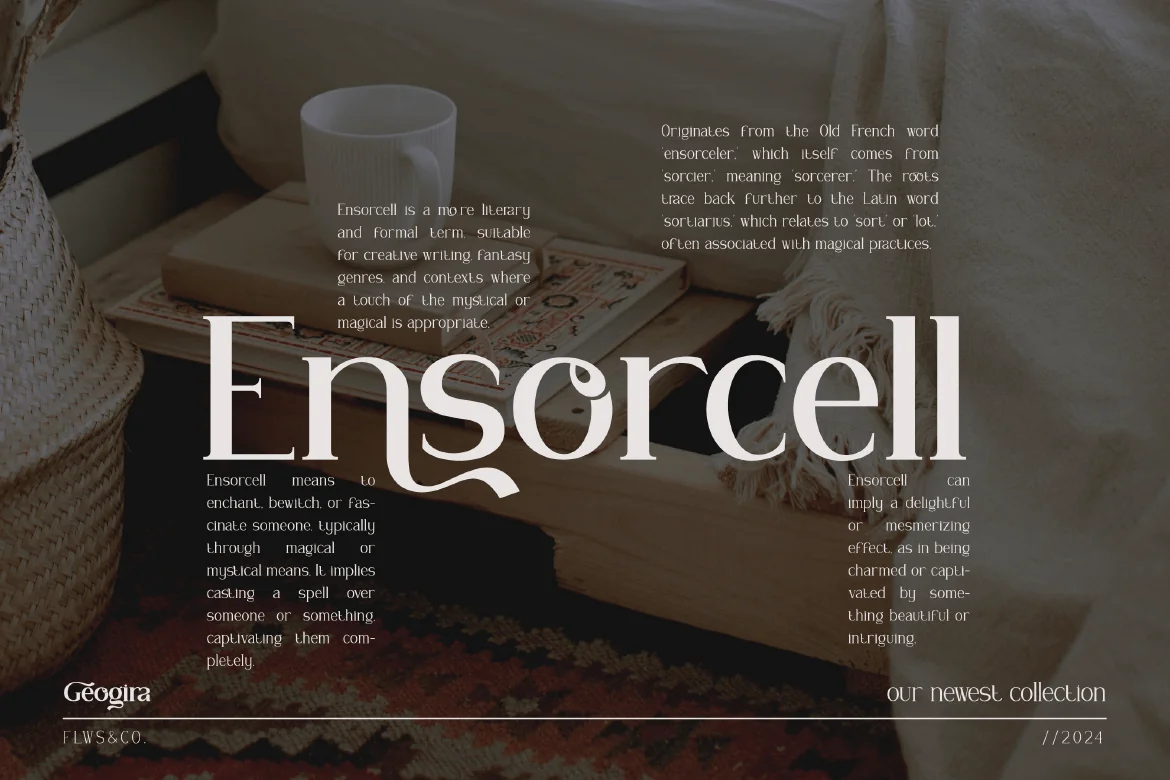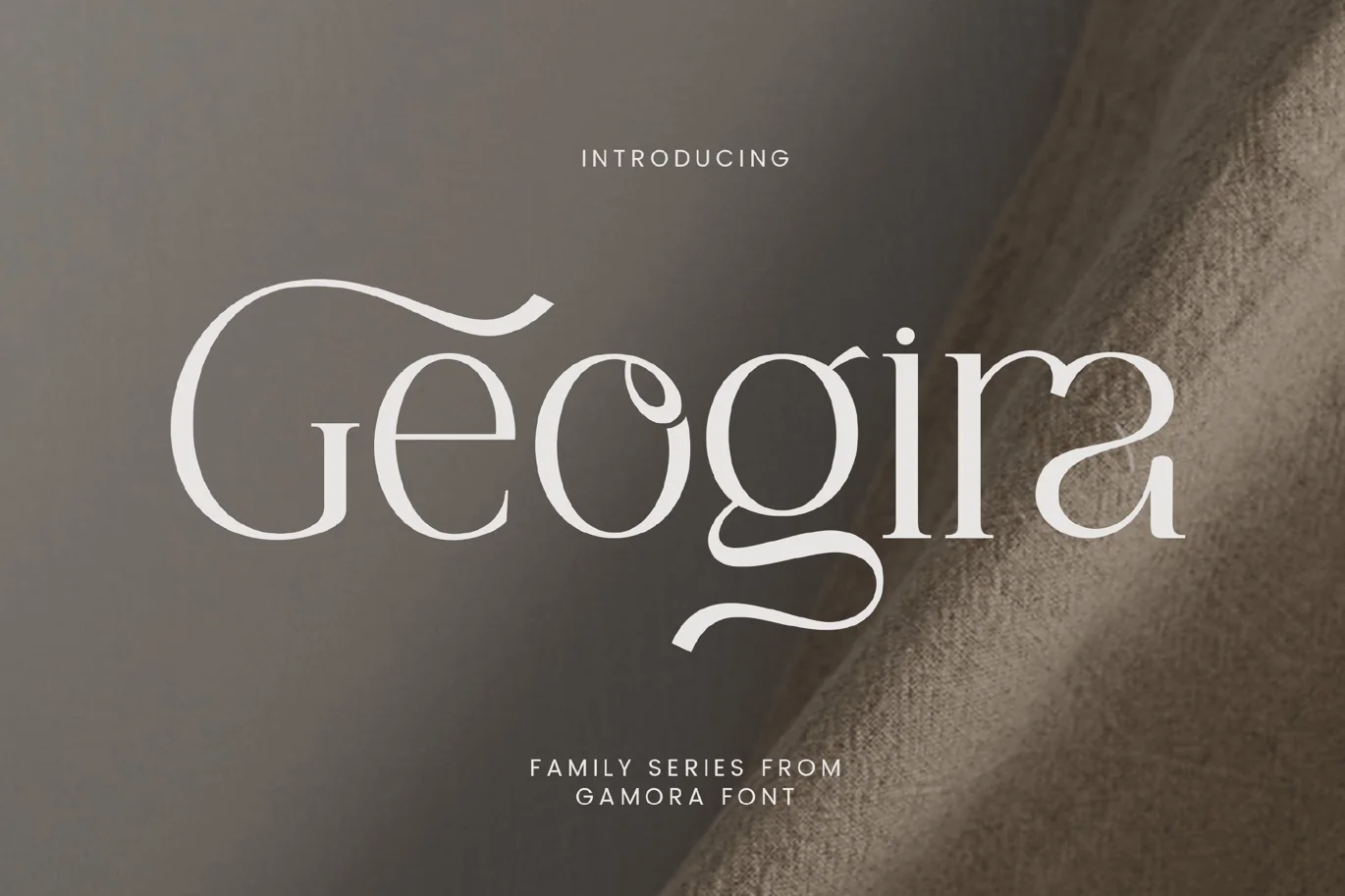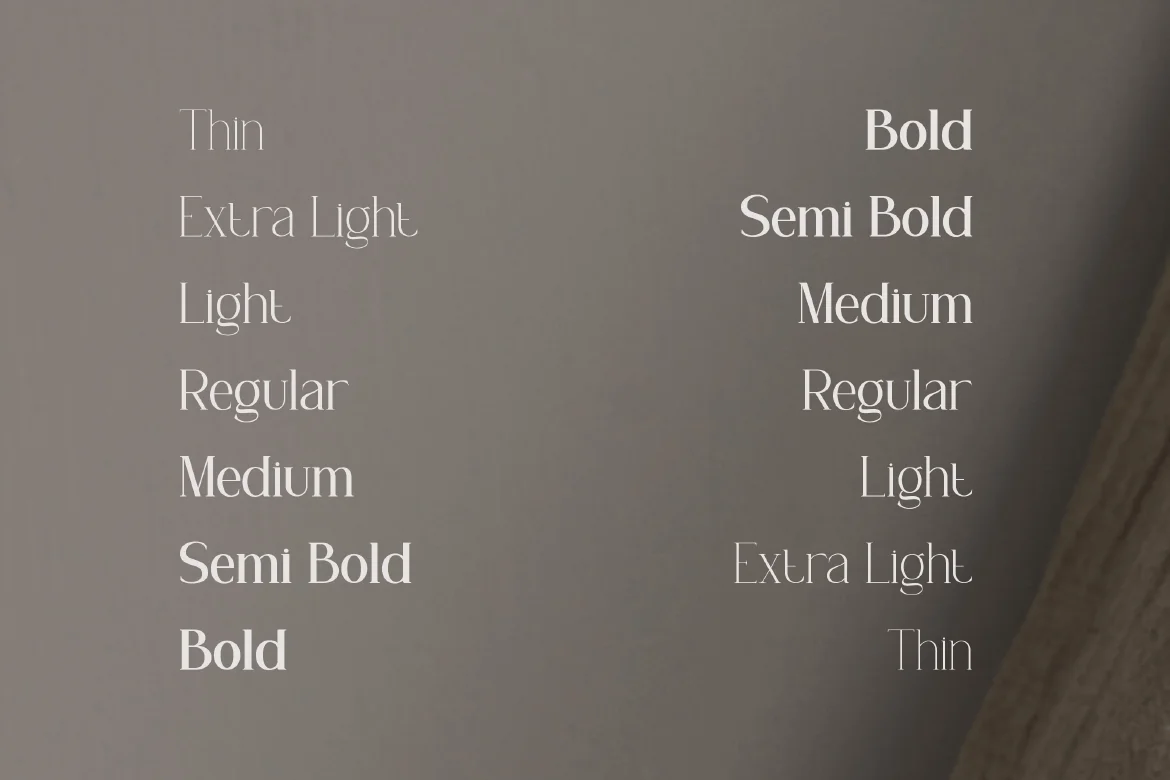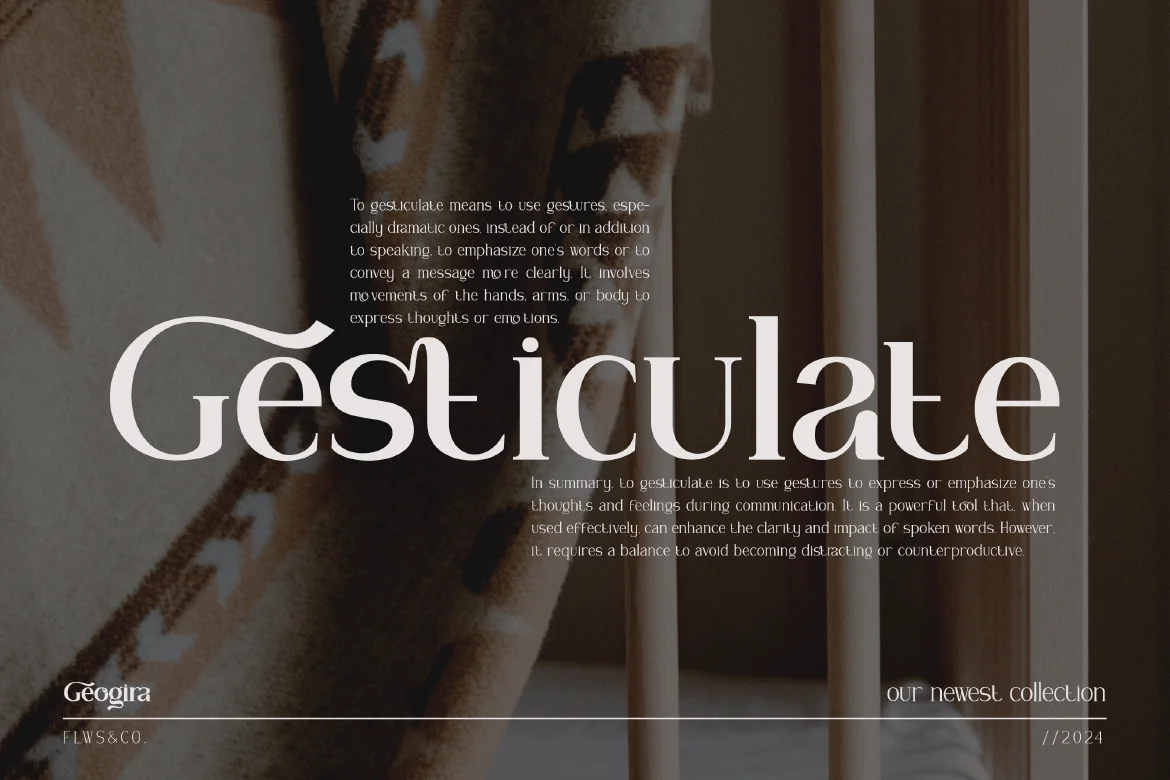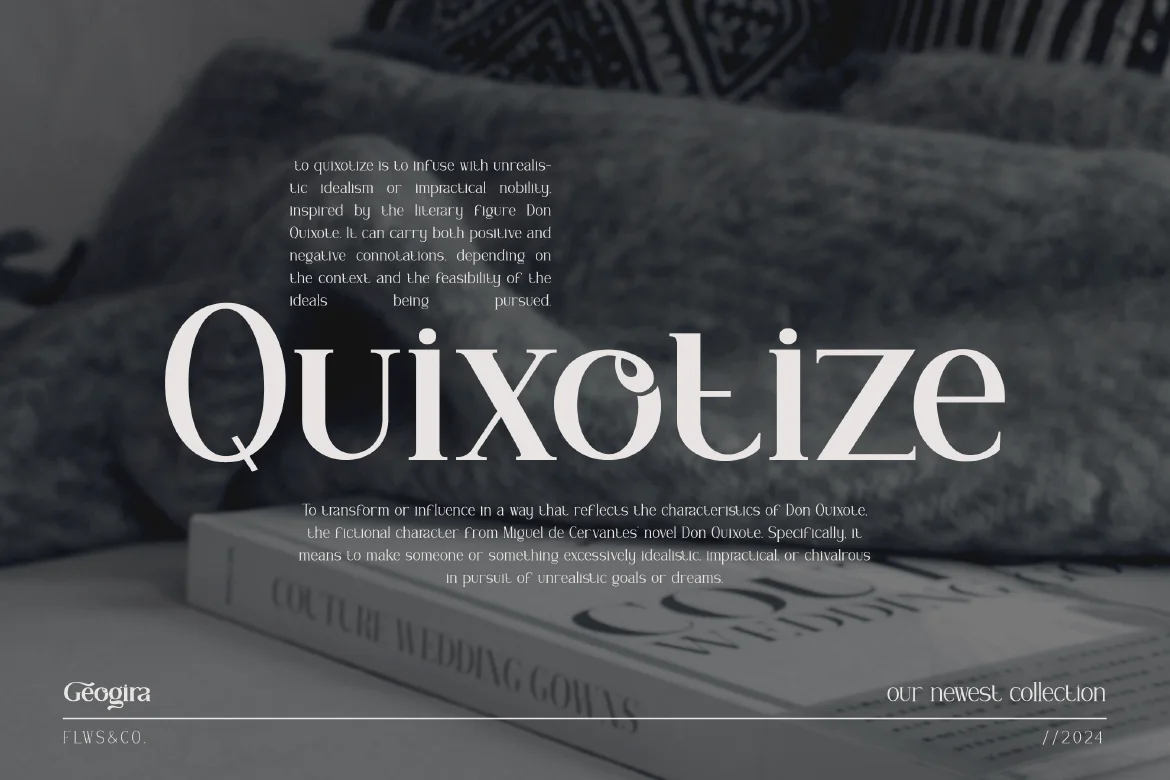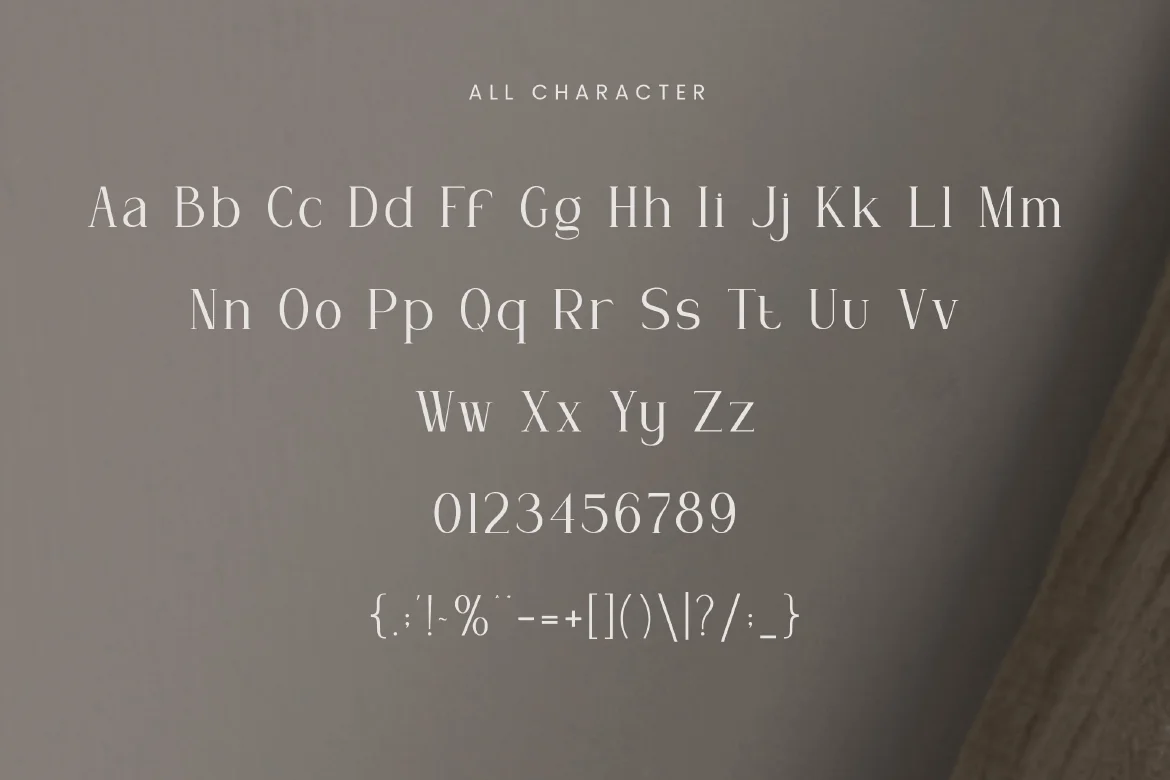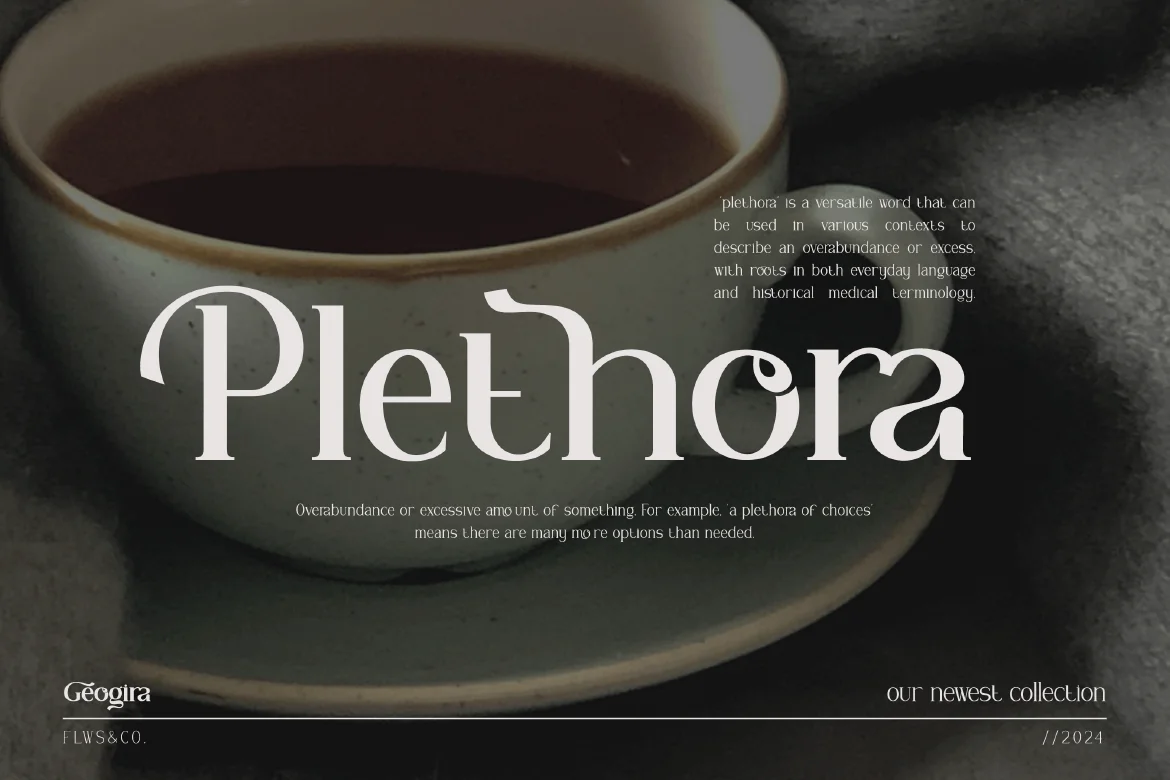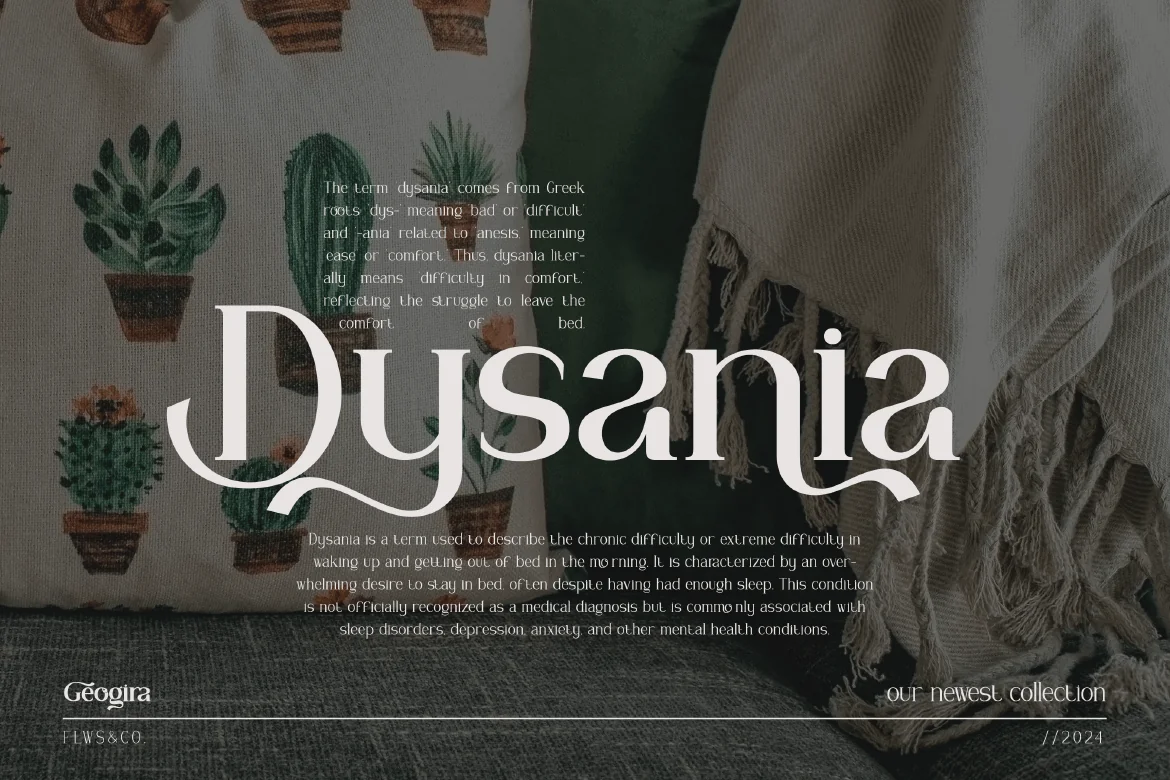
Geogira – Serif Font Family
Introducing “Geogira Family Font”. Dive into the diverse world of typography with “Geogira”, a comprehensive typeface that goes beyond conventional limits. This font family is a symphony of styles, offering Thin, Extra Light, Light, Regular, Medium, Semi-Bold, and Bold variants, allowing you to craft designs that resonate with precision and personality.
Explore the Versatility of The Geogira Family Series Font!
Alternate Character